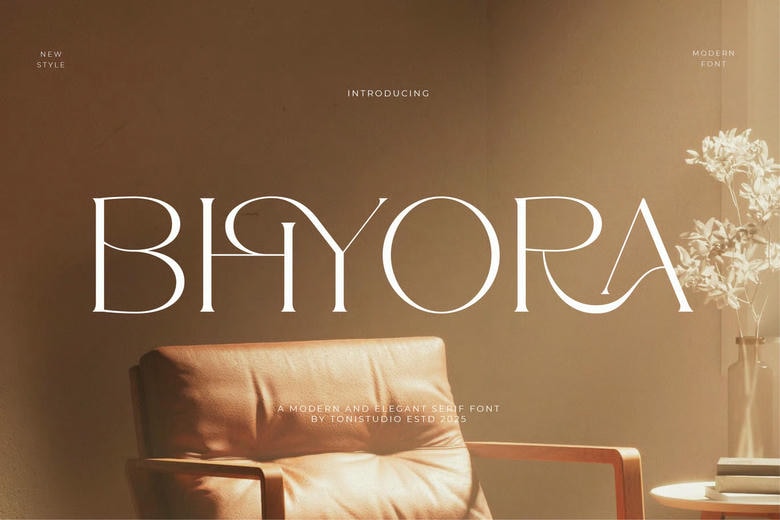
Bhyora Font
Bhyora Modern Serif Font is created in order to add a touch of classic grace and elegance to all your project details. Based on the balance of the antique beauty and a modern design, BHYORA is a combination of thin serifs with rounded lines and is ideal in branding, logos, editorial design, fashion projects, packaging, and wedding invitations.
BHYORA is elegant and powerful, as are the elegant lines in its letters. The characters were well-developed to be confident, feminine and luxurious, which makes it an ideal fit among designers that aim to give its audience a memorable impact.
Bhyora Modern Serif Font